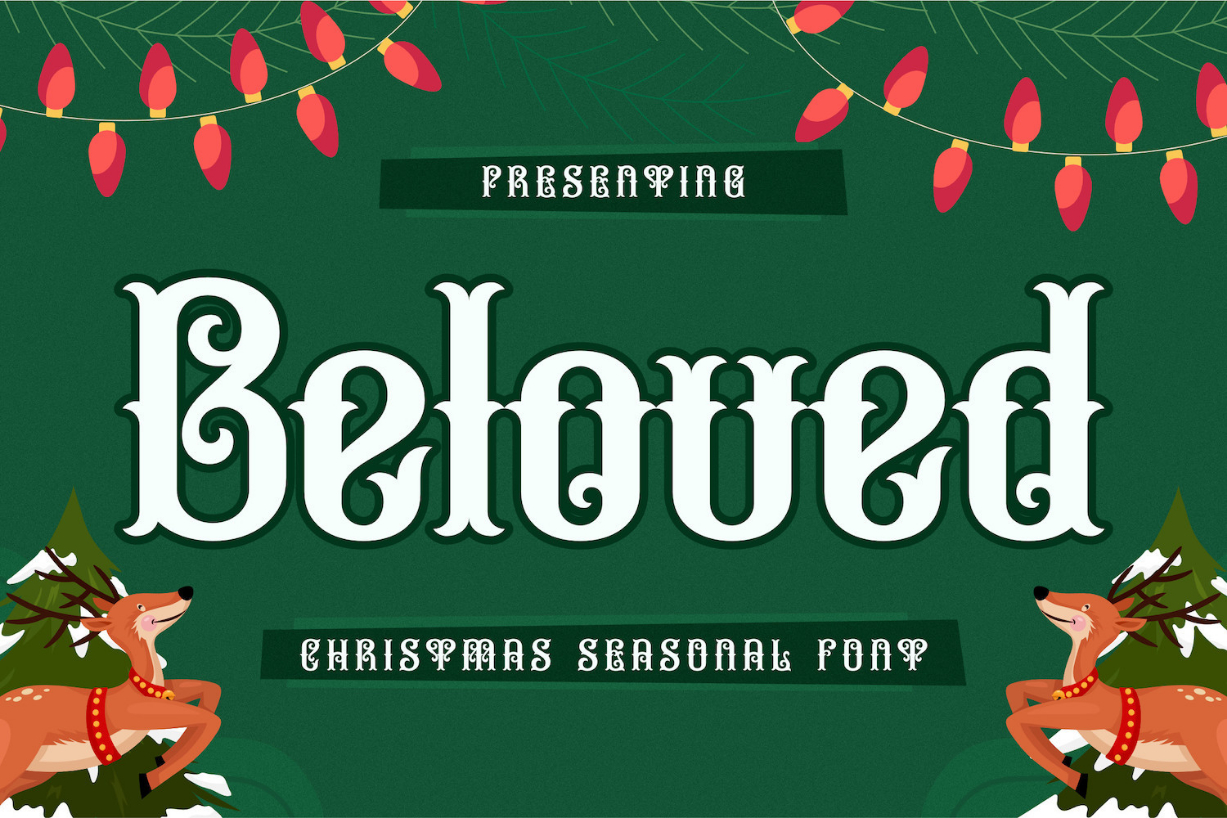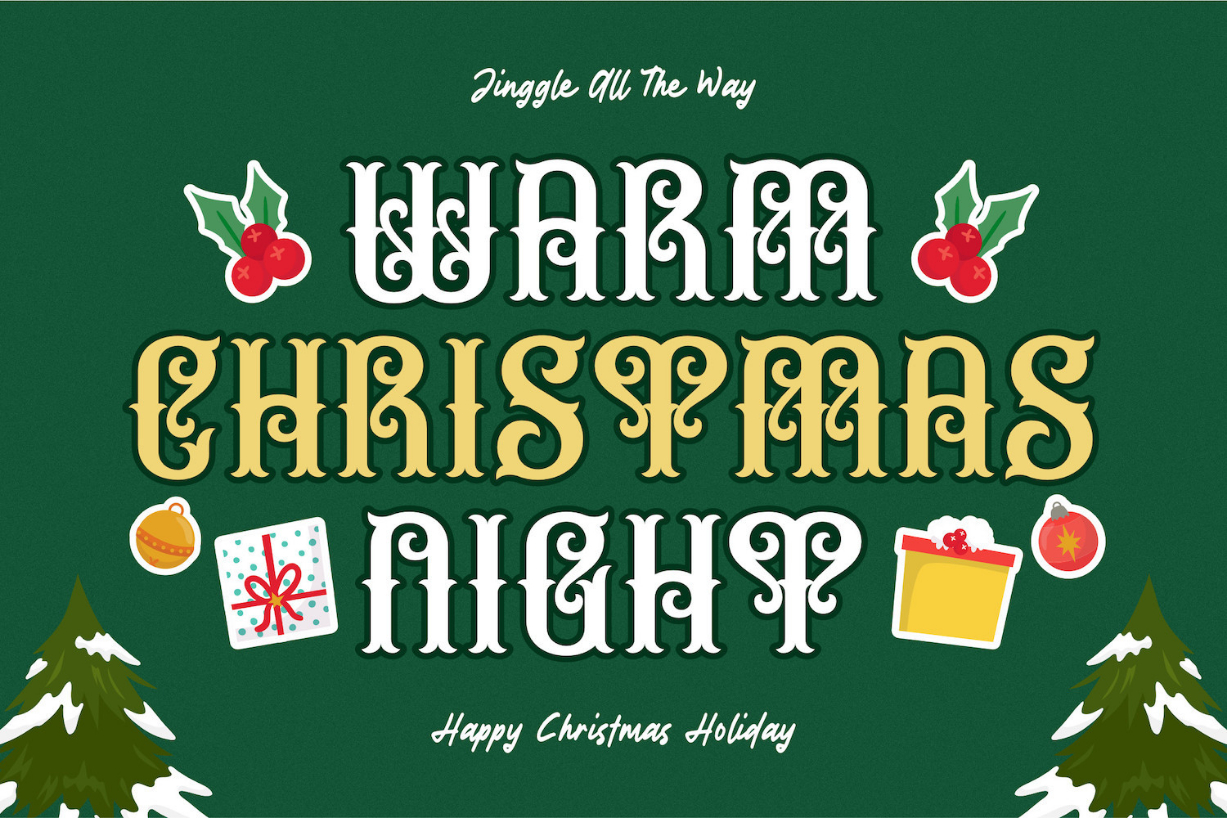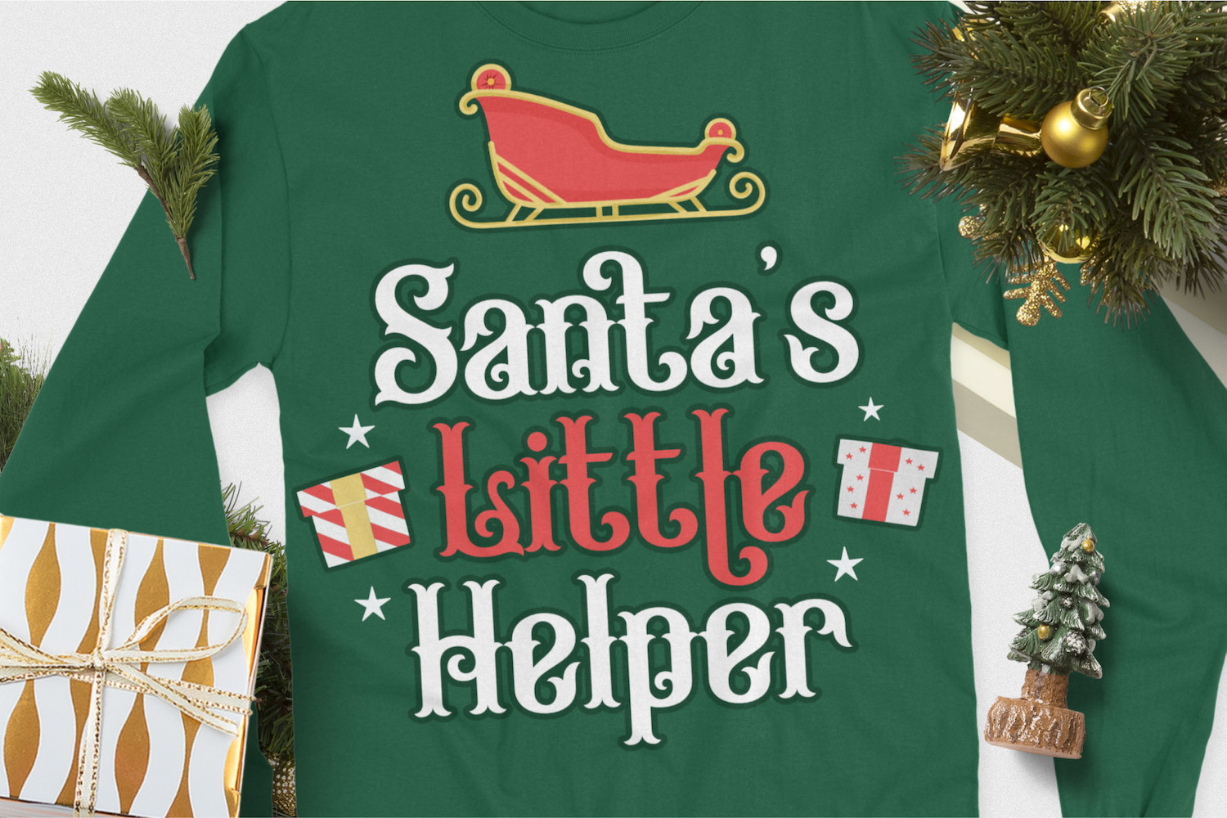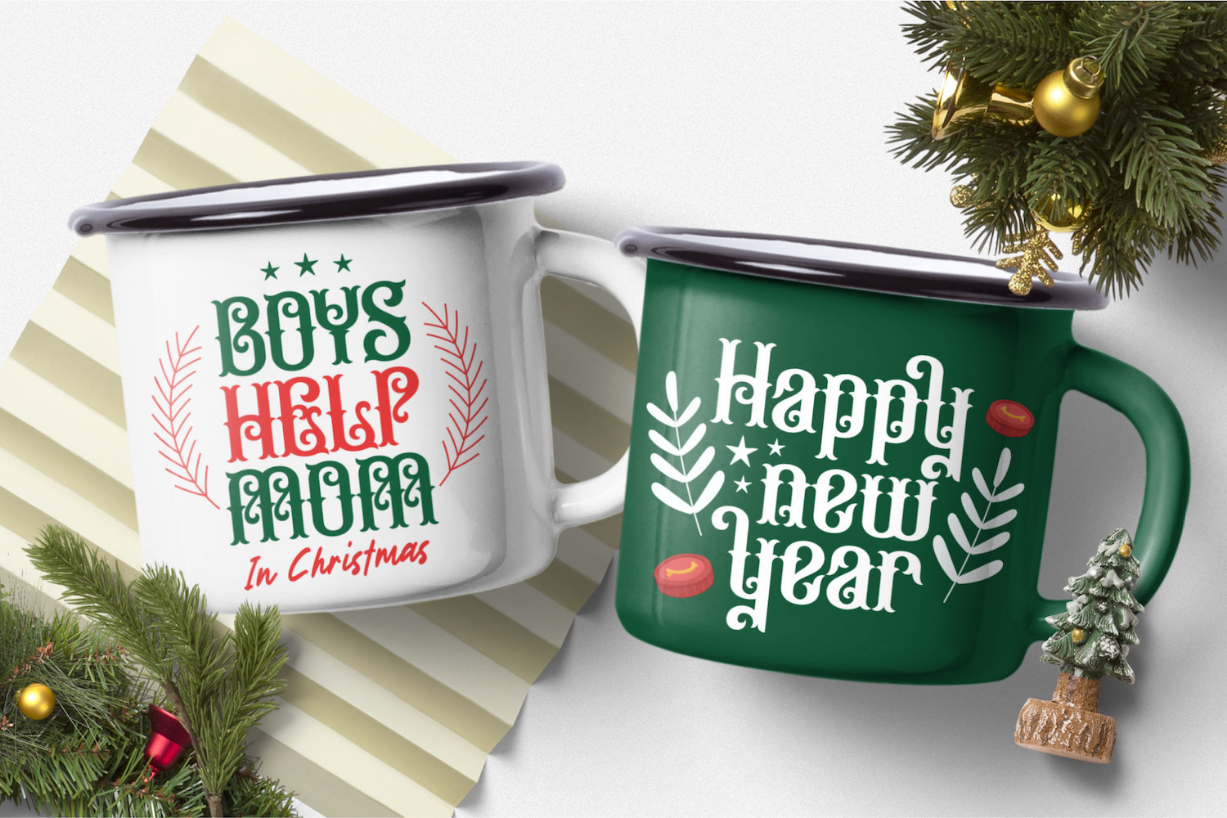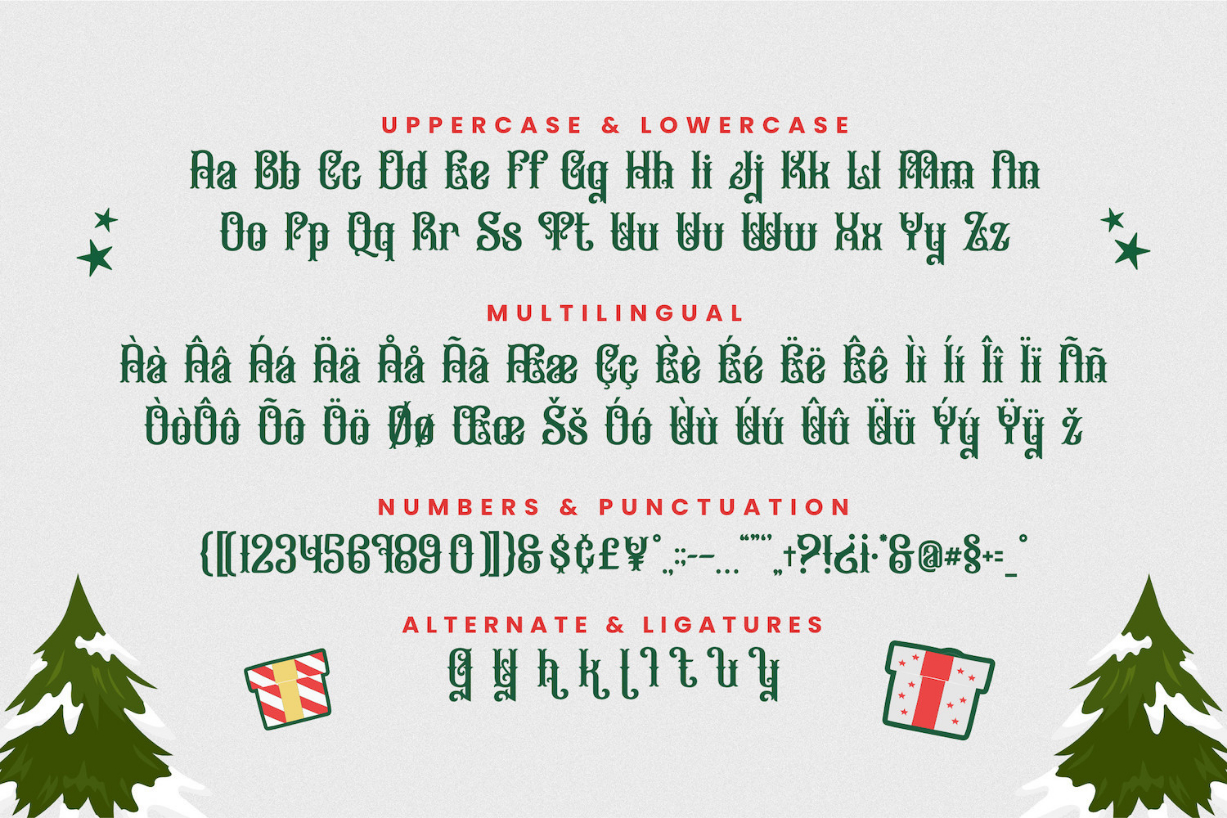
Beloved Font
About Beloved Font
Beloved is a cool and stylish blackletter font. It maintains its classy calligraphic influences while feeling contemporary and fresh. Fall in love with it and bring your projects to the highest levels!